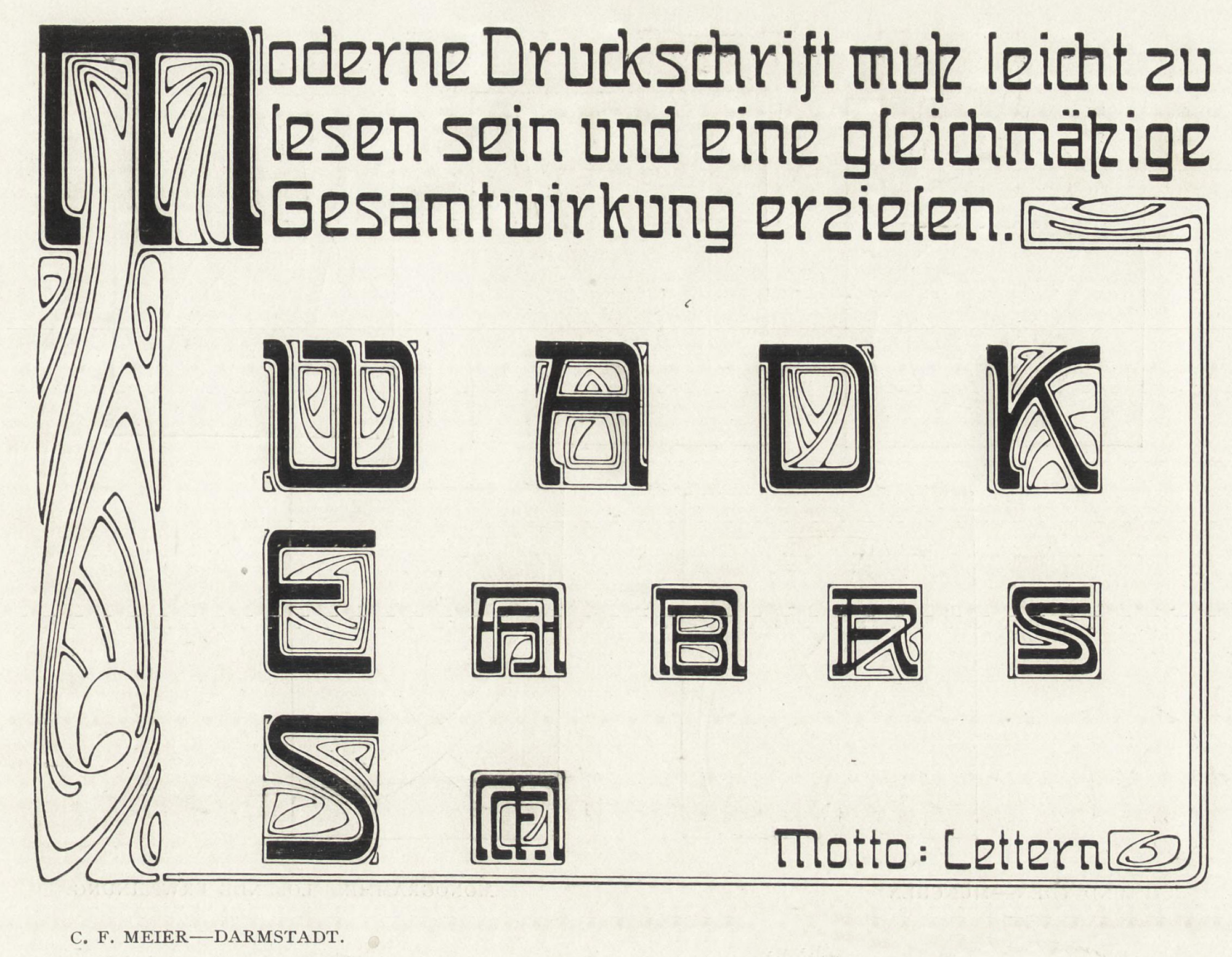
Vorname von C.F. Meier?
Do you know Meyer's name? What do the initials C. F. stand for?
Well, the type designer is obviously named Meier – therefore the font is called »Meierschrift«. The initials C. and F. are his unknown forenames, could be Christian Friedrich or something like that.
In this news paper clipping he is also only referred to as »the sculptor C. F. Meier«. Further he is called a student of Peter Behrens and a founding member of a new arts and crafts group called »Vereinte Kunstgewerbler Darmstadt« (United Artisans Darmstadt).
BTW: In his times »C. F.« often stood for »Carl Friedrich«, as these were widely polpular names. But this is just a guess.
His first and middle name are exactly what I want to find out.
Thanks, I've seen this article and several others, but unfortunately, each one only mentions him as C. F. Meier
Vielleicht habt Ihr ja Lust, die Adressbücher Darmstadts durchzublättern: http://tudigit.ulb.tu-darmstadt.de/show/_md_search?md_query_cat=sammlung&md_query_var=sammlung27&md_query_sort=sort_shelfLocator_sdocval+asc
Mein Internet ist grad zu vodafonig, daher hab ich nur kurz reingeschaut, bin aber geradezu baff von der Qualität der Anzeigengestaltung (nur probeweise in den vierten Teil reingeschaut: http://tudigit.ulb.tu-darmstadt.de/show/H-B_720_Bd_1/1207/image)
I searched the address book for 1903, but did not find any matches. Then I OCRed the entire document and found the name Carl Meier in the list of commodity agents (Waaren-Agenten). But I don't think it's the one I'm looking for.
You probably looked this one up already, but I’ve found a Meier, forename Christian, profession Kupferschmied (a coppersmith) in the 1895 edition.
Vielleicht mag ja jemand der hier Mitlesenden, der*die in/bei Dresden wohnt, einen Gang ins Staatsarchiv unternehmen? Ich gehe davon aus, dass es einen Vertrag zur Meierschrift geben wird.
Obwohl die Gieseckes von Schelter & Giesecke und von Giesecke & Devrient aus derselben Familie stammten, waren die Firmen von einander getrennt. Ich gehe nicht davon aus, dass Schelter & Giesecke Verträge bei den Giesecke & Devrient Archivalien zu finden sind.
Salmose, I also spent part of yesterday searching for this information, but I did not find anything helpful. If I had to guess, I would say that the most likely name was “Christian Friedrich” but there are indeed other possibilities.
Da hast Du sehr wahrscheinlich reicht, ich irrte wohl ausgehend hiervon: https://www.archivportal-d.de/item/N3RFIAY3NINYBIJWSTNHRUOSLYTOQZ6H
Die archivierte Lieferscheine kann ich im Netz nicht sehen (vielleicht irgendwann!), aber ich gehe stark davon aus, dass Giesecke & Devrient nahezu ihre komplette Ausstattung von Schelter & Giesecke gekauft hat, und regelmäßig neue Schriften von dort bezog.
Die Archive von Typoart dürften zumindest momentan nicht zur Verfügung stehen. Leider.